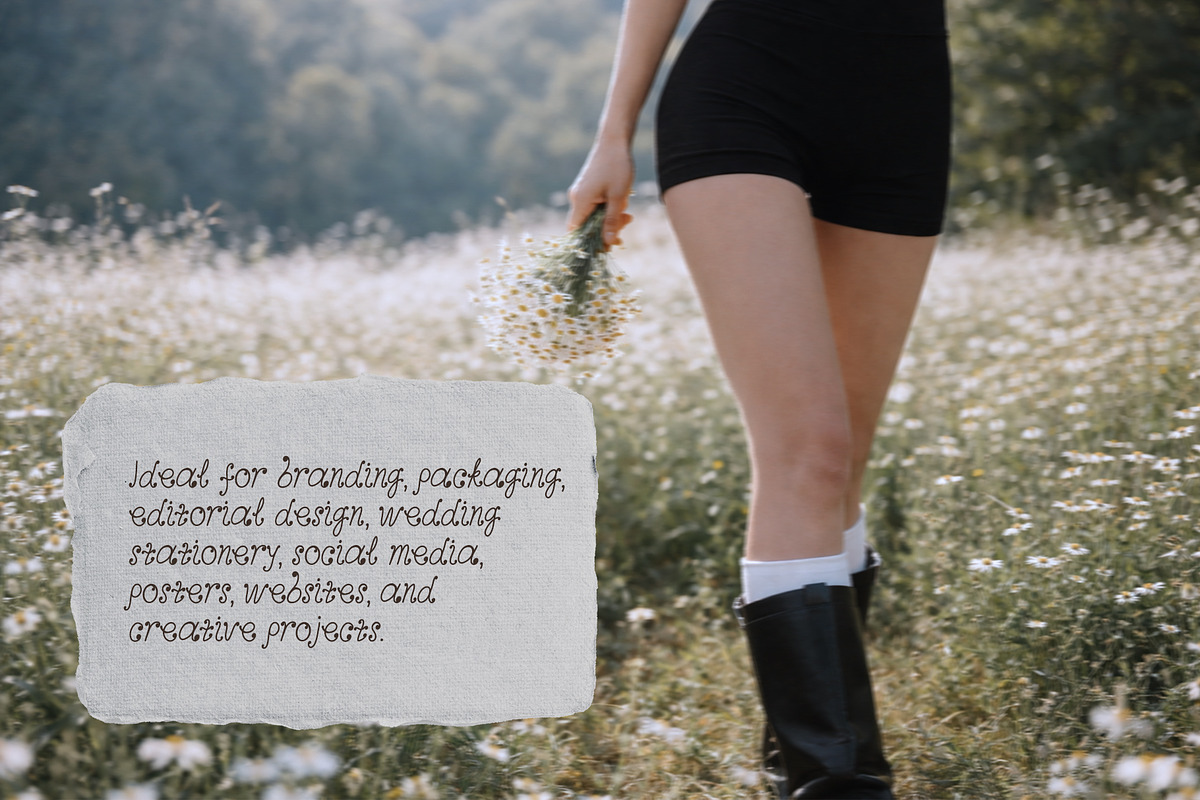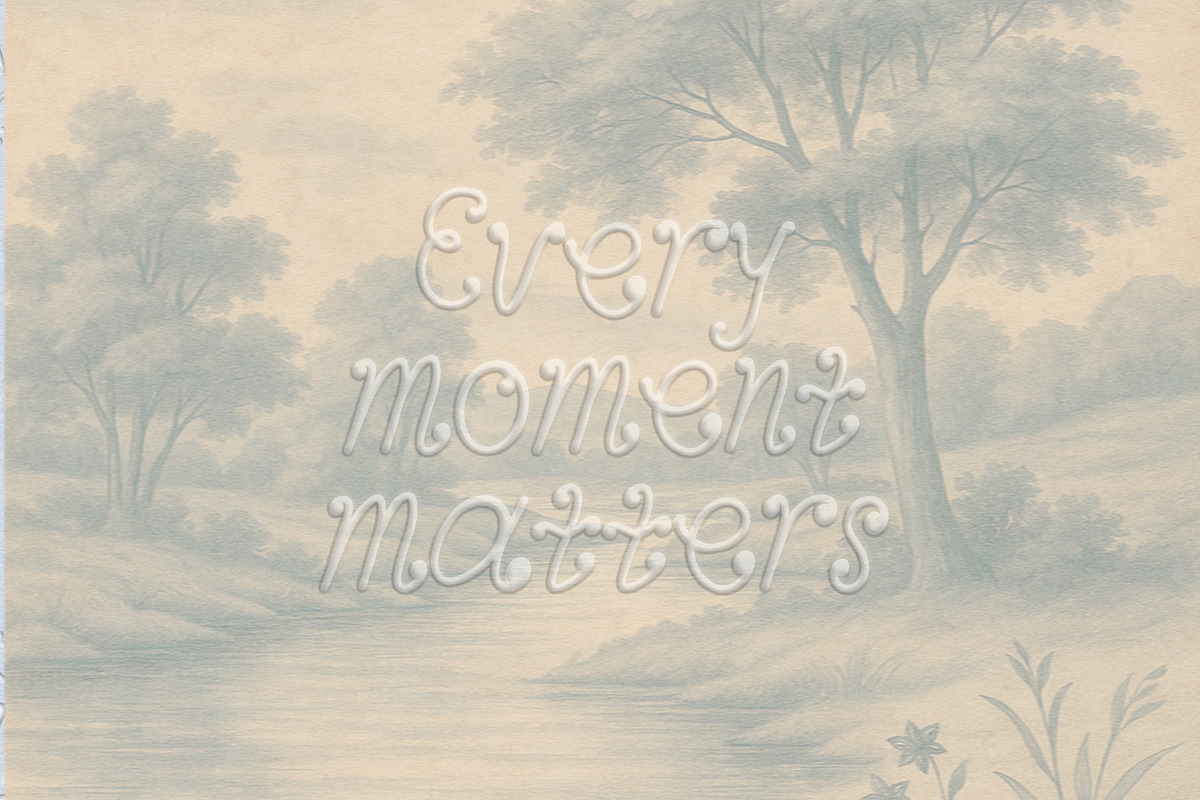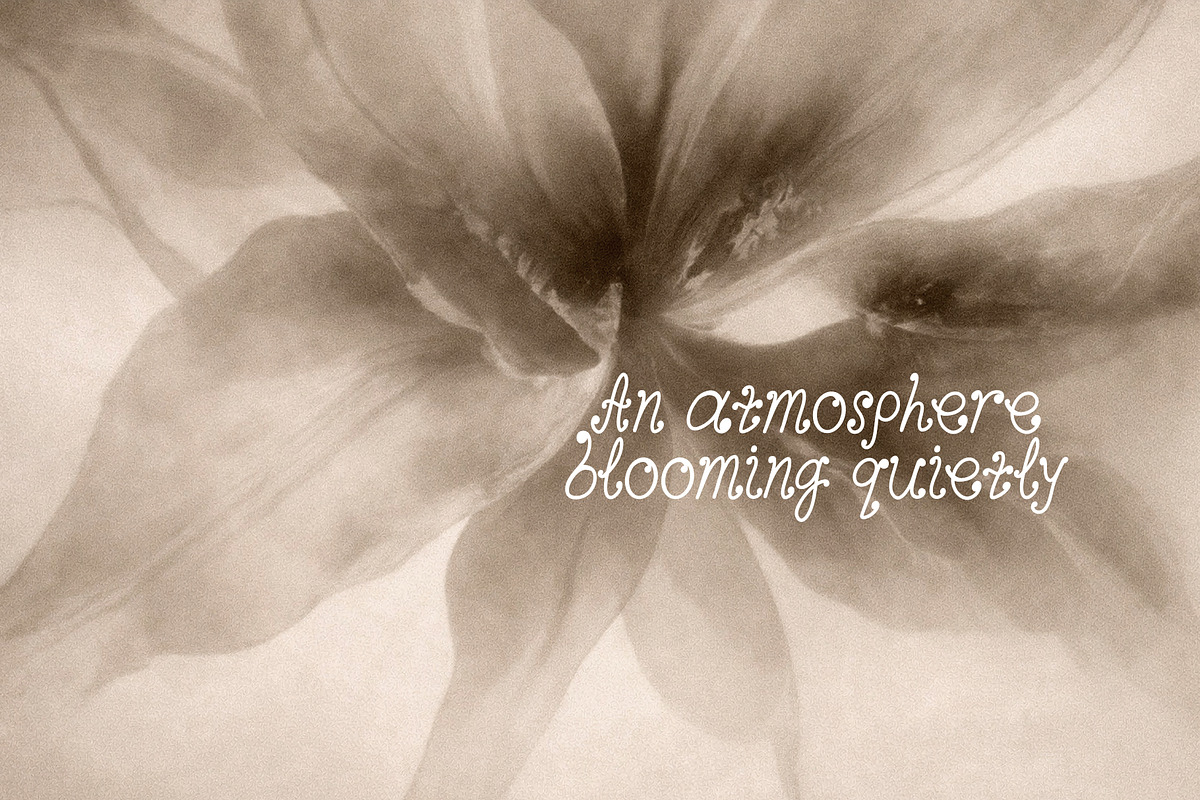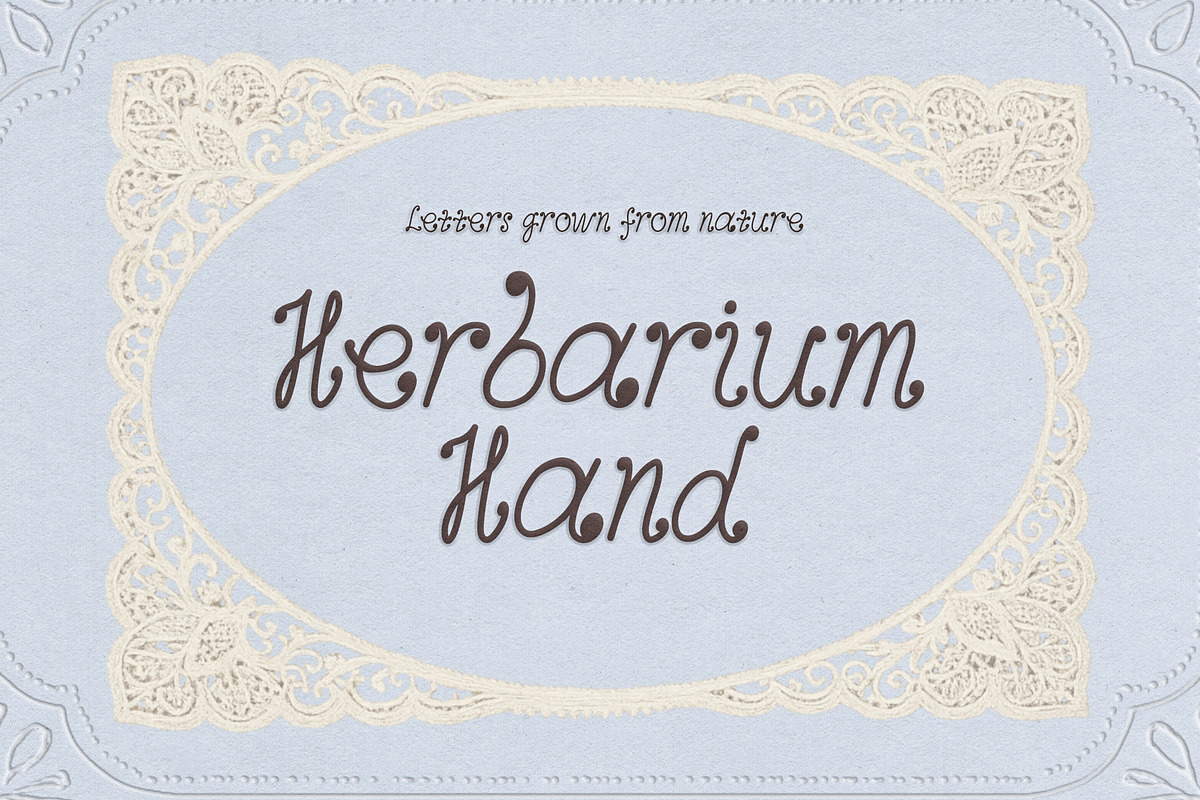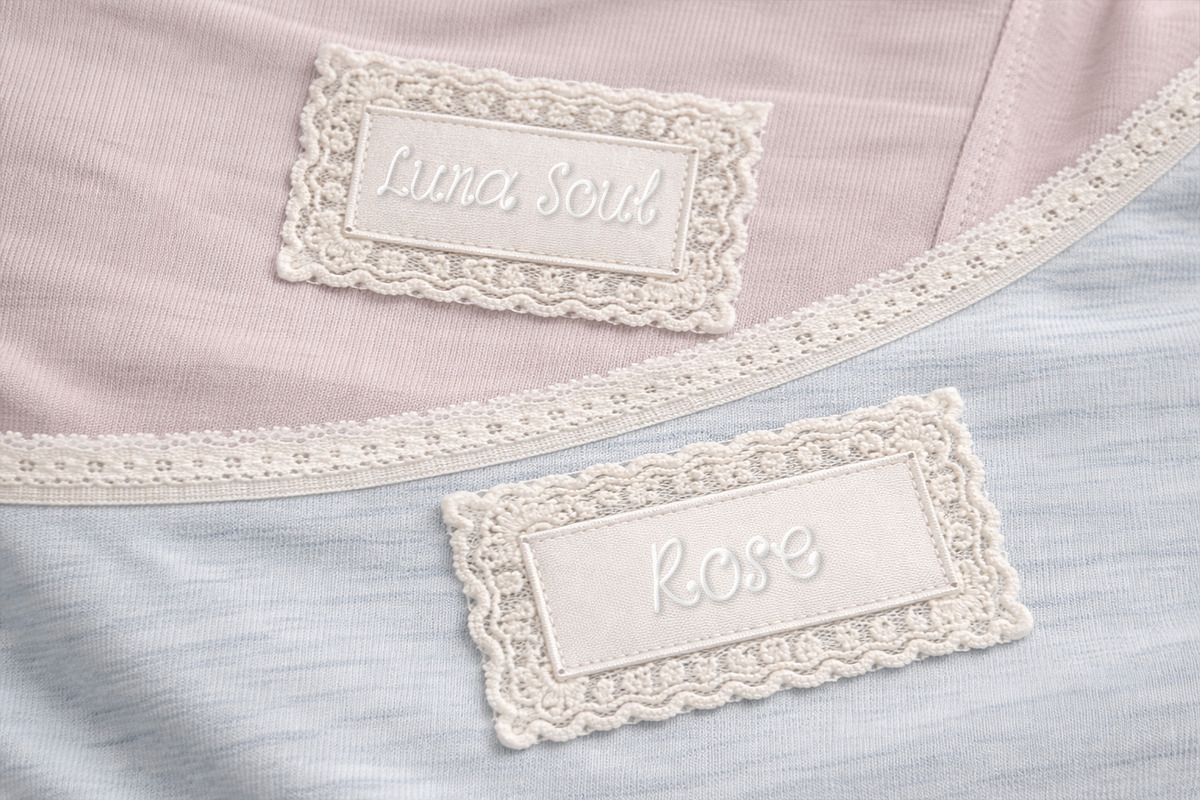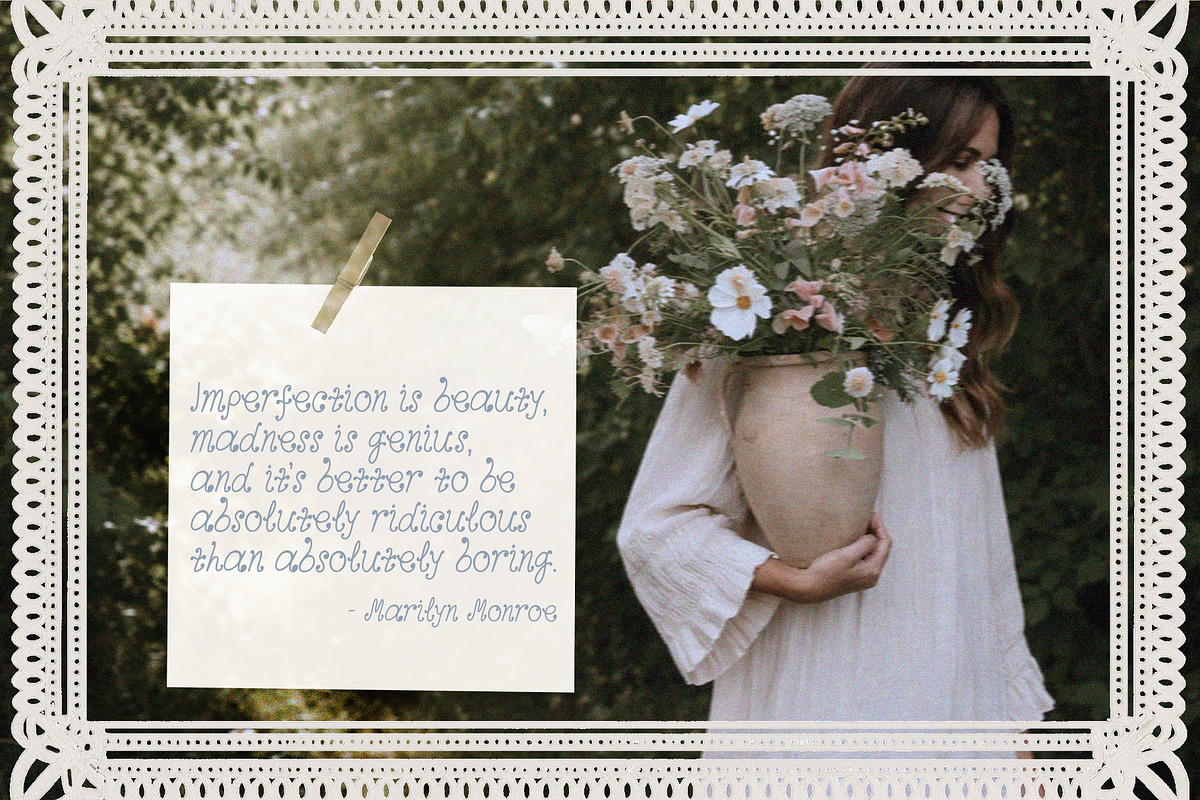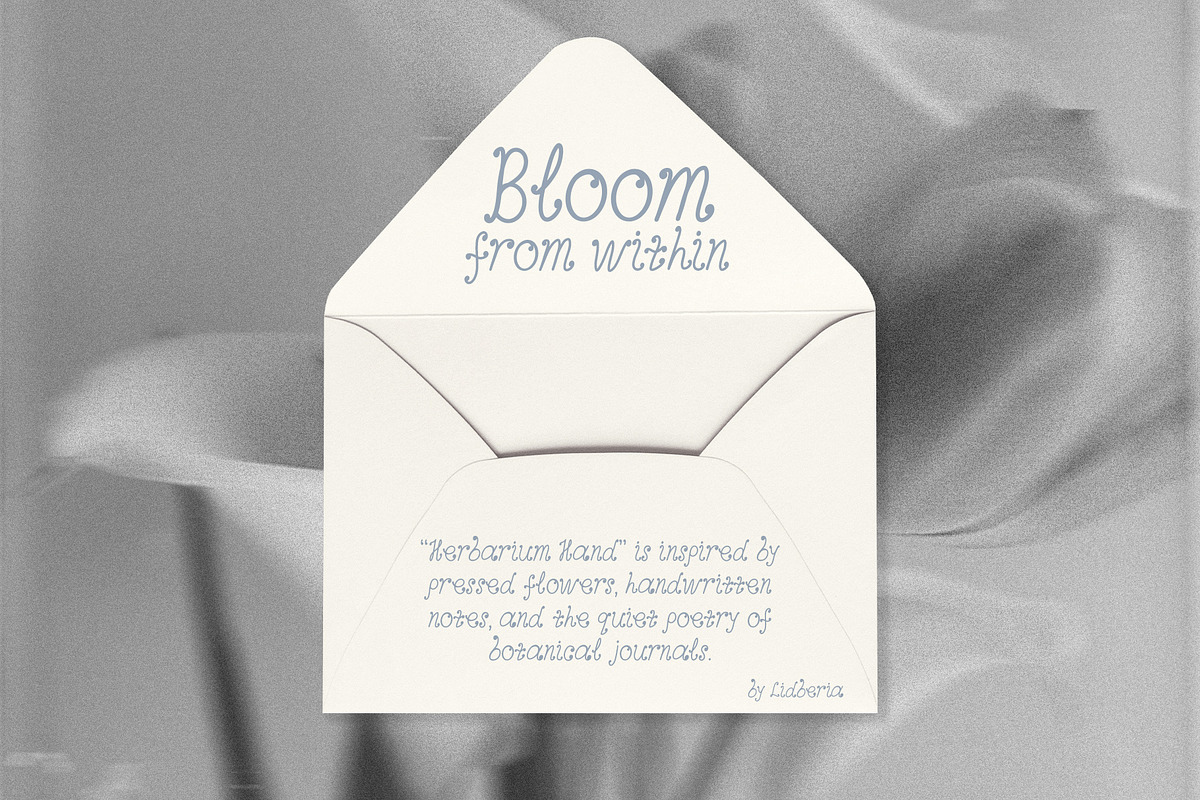
Herbarium Handwritten Font
Herbarium Hand is a delicate handwritten font inspired by pressed flowers, botanical journals, and slow, thoughtful notes on paper. This font has a natural, slightly imperfect rhythm that feels warm and organic. Each letter is drawn to look gentle and alive, making the typeface perfect for projects that need a personal, poetic, and handcrafted touch. Herbarium Hand works beautifully in both short phrases and longer texts, adding softness and character without overpowering the design. It is ideal for designs that value simplicity, authenticity, and a calm visual mood.